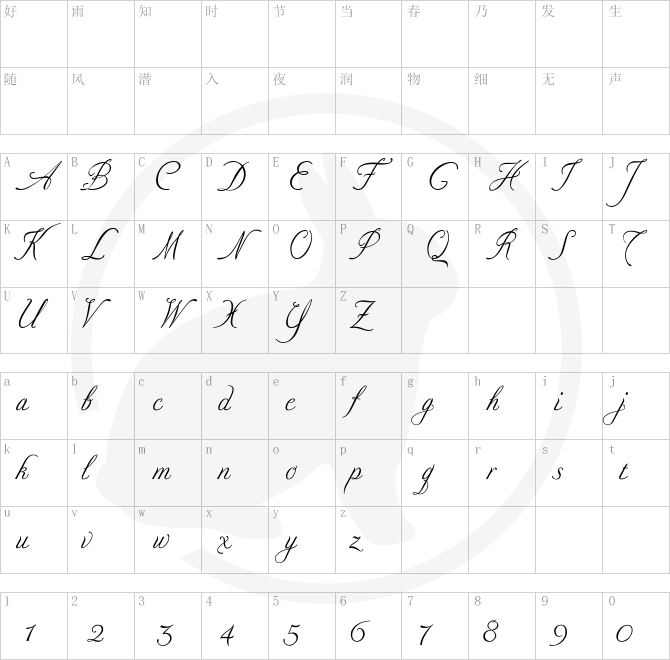
- Font Name:NadineScriptExtra
NadineScriptExtra.ttf is a very beautiful artistic font, NadineScriptExtra.ttf is widely used in the design and printing of various books and pictures,NadineScriptExtra.ttf has a strong visual impact,NadineScriptExtra.ttf is a commonly used font in newspapers, magazines and books, and is used in posters, e-commerce Poster design, store design, logo design, font design and other fields.NadineScriptExtra.